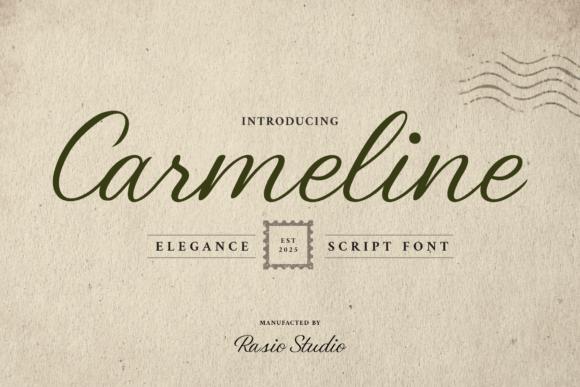
The Art of Elegant Typography
As I sat at my desk, pen in hand, staring at a blank sheet of paper, I knew exactly what I was looking for – a font that captured the essence of timeless sophistication. It was then that I stumbled upon the perfect companion for my creative journey: the Carmeline Font.
This refined handwritten style is a masterclass in elegance, with flowing curves and delicate letterforms that evoke a sense of luxury and refinement. Whether you’re looking to elevate your brand’s identity or add a touch of vintage charm to your personal projects, the Carmeline Font is the perfect choice. Its soft contrast and organic rhythm give each word a natural, romantic character that’s both modern and classic at the same time.
Carmeline Font Key Features
- Font Family: Carmeline
- Font Style: Script, Calligraphy, Decorative
- Unique Characteristics:
- Hand-painted script design
- Highly legible and elegant font
- Perfect for wedding invitations, greeting cards, and special occasions
Carmeline Font Review
I recently had the chance to work with the Carmeline Font, and I must say it’s an interesting font. Here are my honest thoughts:
- Unique style: Carmeline Font has a distinct, elegant feel that sets it apart from other fonts. It’s perfect for creating a sophisticated and luxurious look.
- Legibility: Despite its ornate appearance, the font is surprisingly easy to read, making it suitable for both display and body text.
- Customization options: The font offers a range of styles and weights, allowing designers to customize it to fit their specific project needs.
- Limited language support: Carmeline Font may not be the best choice for projects that require support for multiple languages, as it’s primarily designed for English and other Latin-based languages.
- Size and weight limitations: While the font offers a range of styles and weights, it may not be suitable for very large or very small text sizes, which can limit its versatility.
Overall, I think Carmeline Font is a solid choice for designers who want to add a touch of elegance and sophistication to their projects. However, its limitations may make it less suitable for certain types of projects or designers who need more flexibility and compatibility.
Carmeline Font: A Practical Application Guide
Use Carmeline Font to create elegant headings and titles in your designs.
Combine Carmeline Font with other fonts to create a unique and eye-catching design.
Carmeline Font is perfect for:
– Branding and logo design
– Editorial and publishing design
– Fine art and illustration
Alternatives to Carmeline Font for Designers
The Great Vibes Font is a modern, elegant script font ideal for creating a sense of sophistication and luxury. It features beautiful flowing connections between letters and is suitable for use in branding, logos, and invitations. Great Vibes is more casual and playful compared to Carmeline Font, making it a great alternative for designers looking for a friendly and approachable feel.
Carolyna Pro is a high-end, elegant script font with a touch of sophistication and glamour. It features beautiful, flowing connections between letters and is suitable for use in branding, logos, and high-end packaging designs. Carolyna Pro is more refined and polished compared to Carmeline Font, making it a great alternative for designers looking for a high-end feel.
Carolyna Pro is more similar to Carmeline Font compared to Great Vibes Font. However, Carolyna Pro has a more refined and polished look and feel, making it a great alternative for designers looking for a high-end feel.